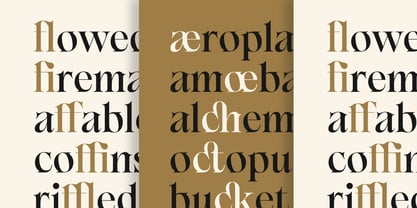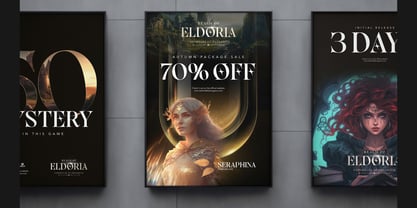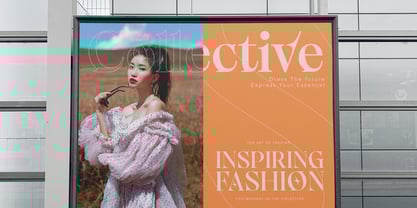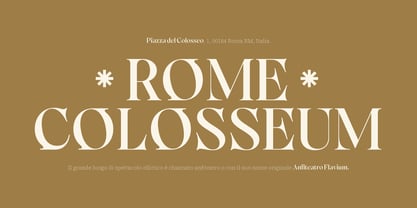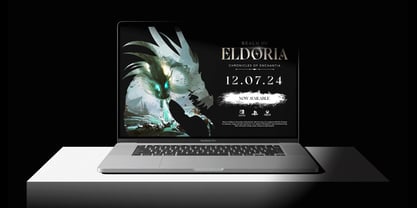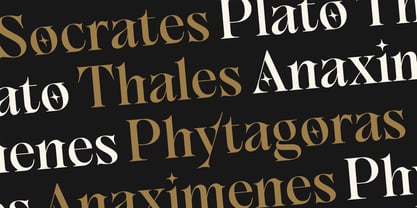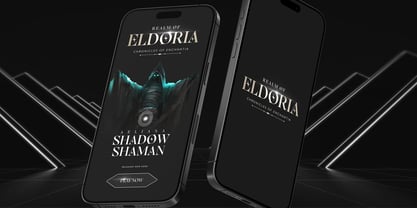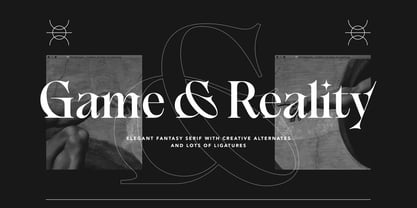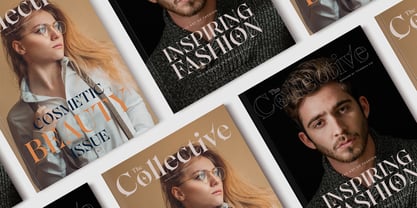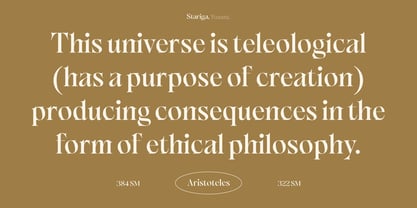
Game & Reality
by Typia Nesia
The Game & Reality Font Family was designed by Arief Setyo Wahyudi and published by Typia Nesia. Game & Reality contains 1 styles.
Game & Reality is a sophisticated Elegant Fantasy Serif font designed to bring a touch of enchantment to your creative projects. Ideal for a wide range of applications, from branding and packaging to editorial design and fantasy-themed projects, such as Fantasy Book Covers and Publishing, Tabletop Games and Accessories, Virtual Reality (VR) Gaming Platforms, Fantasy-themed Fashion and Accessories. Game & Reality adds an elegant and mystical flair to your typography. This font is designed to elevate gaming interfaces, book covers, and other creative endeavors, delivering a touch of magic to every project.